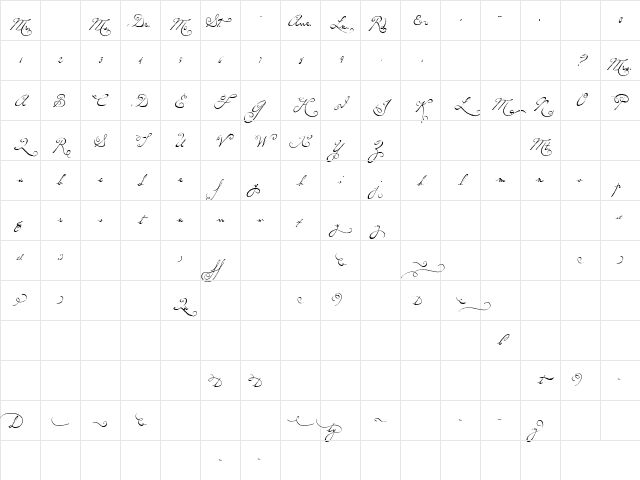
P22DearestSwash Regular
Design Context for P22DearestSwash
P22DearestSwash flows with the natural rhythm of handwritten lettering, making it ideal for designs that call for warmth and personal expression.
Font Pairing: Combine P22DearestSwash with a simple geometric sans for maximum contrast - the tension between flowing curves and clean structure is a classic typographic pairing.
Pro Tip: Use P22DearestSwash for short runs of text - names, titles, or taglines. Extended body copy in script faces tires the eye quickly.